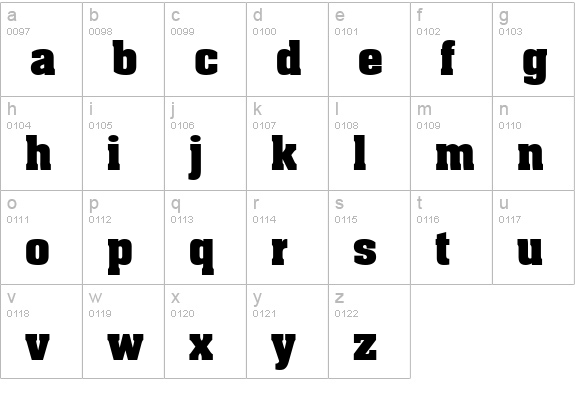
TR Aardvark Bold Font Details
TR Aardvark Bold is a strong, high-contrast variant in the TR typeface family \xE2\x80\x94 well suited to headlines, attention-grabbing titles, and strong calls-to-action.
TR Aardvark Bold is a dynamic and eye-catching font that exudes a sense of strength and modernity. Its bold and angular letterforms make a bold statement, perfect for creating impactful designs that demand attention. Whether used for headlines, logos, or promotional materials, this font is sure to make a memorable impression. The TR Aardvark Bold font is not only visually striking but also versatile, making it suitable for a wide range of design projects. From posters to packaging, this font adds a touch of boldness and style to any layout. Its clean lines and geometric shapes give it a contemporary edge that is both timeless and on-trend. Best of all, TR Aardvark Bold is available for free download at FontsMarket.com. This means that you can easily access this high-quality font without any cost, making it a valuable resource for designers and creatives looking to enhance their projects with a touch of bold sophistication. Don't miss out on the opportunity to add TR Aardvark Bold to your font collection today!